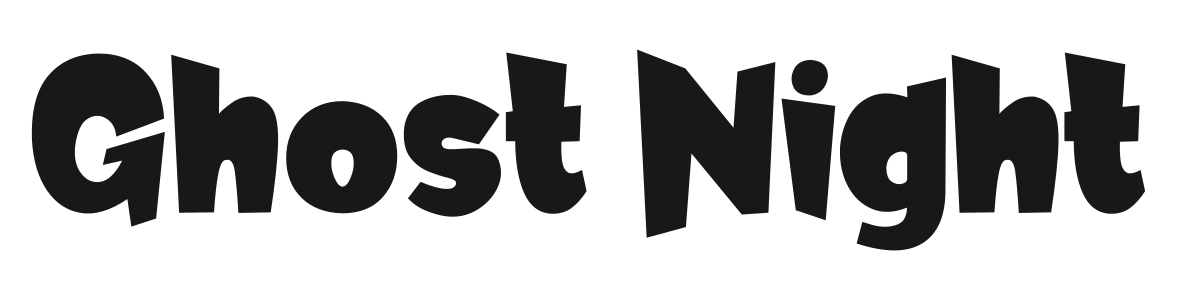
Ghost Night
Ghost Night is a heavy display font with warped, rubbery characters that sit somewhere between cartoon horror and playful mischief. Each letter feels hand-shaped, with irregular widths and rounded terminals that give the whole word a bouncy, slightly unhinged energy. Great for Halloween branding, game titles, and anything that needs a spooky-fun edge.